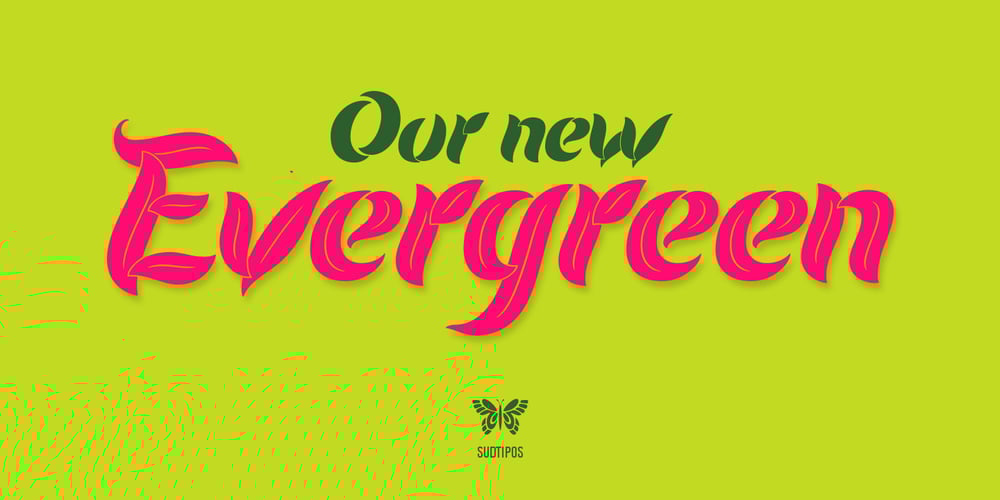
Evergreen
Evergreen font
Evergreen Font Family was designed by Alejandro Paul, Angel Koziupa and published by Sudtipos. Evergreen contains 3 styles and family package options. Evergreen is Koziupa and Paul going all Zeitgeist after a few Malbec drinks. Two fonts praise nature from when the lights go out to the crack of dawn, and vice versa. That’s 24/7/365 of wild leafy Kumbaya. Even butterflies and flowers were mystified so much they had to get in there. Evergreen is local, organic, and certified free trade. At some point we wrote down the name of the jungle where it originated, then lost the parchment in the hot springs a few hours later. But that’s immaterial. Crank up your Deep Forest sound, prep your Earthtone and Foliage palettes, and get into the big herbal.